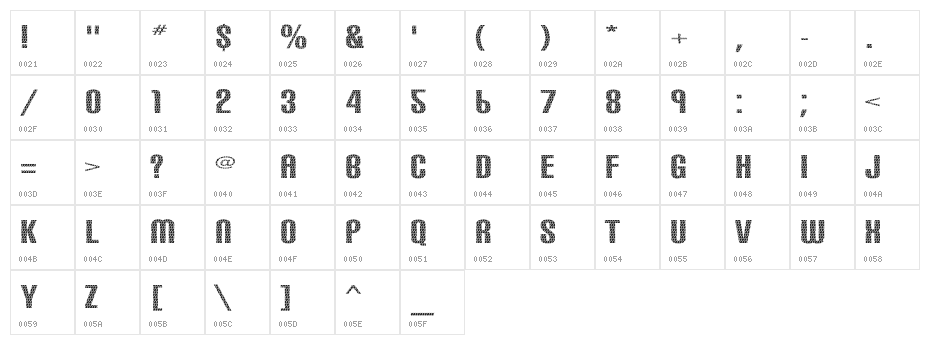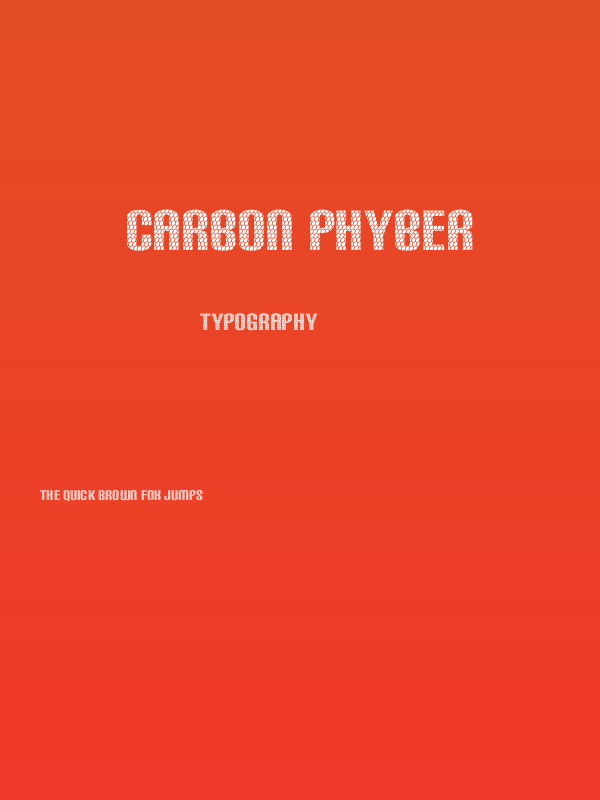
Carbon Phyber Font
Carbon Phyber Description
This font features a bold and striking design with a unique pattern resembling carbon fiber texture. The characters are constructed with a consistent geometric style, giving them a modern and industrial feel. Each letter and number is filled with a hexagonal mesh pattern, creating a sense of depth and texture. The font maintains uniformity across uppercase, lowercase, and numerical characters, ensuring readability while adding a decorative touch. Special characters are also included, matching the overall aesthetic. The design is suitable for projects that require a futuristic or technological theme, making it ideal for branding, posters, and digital media.
Proposed ProjectsIdeal for branding, posters, digital media, and projects with a futuristic or technological theme.